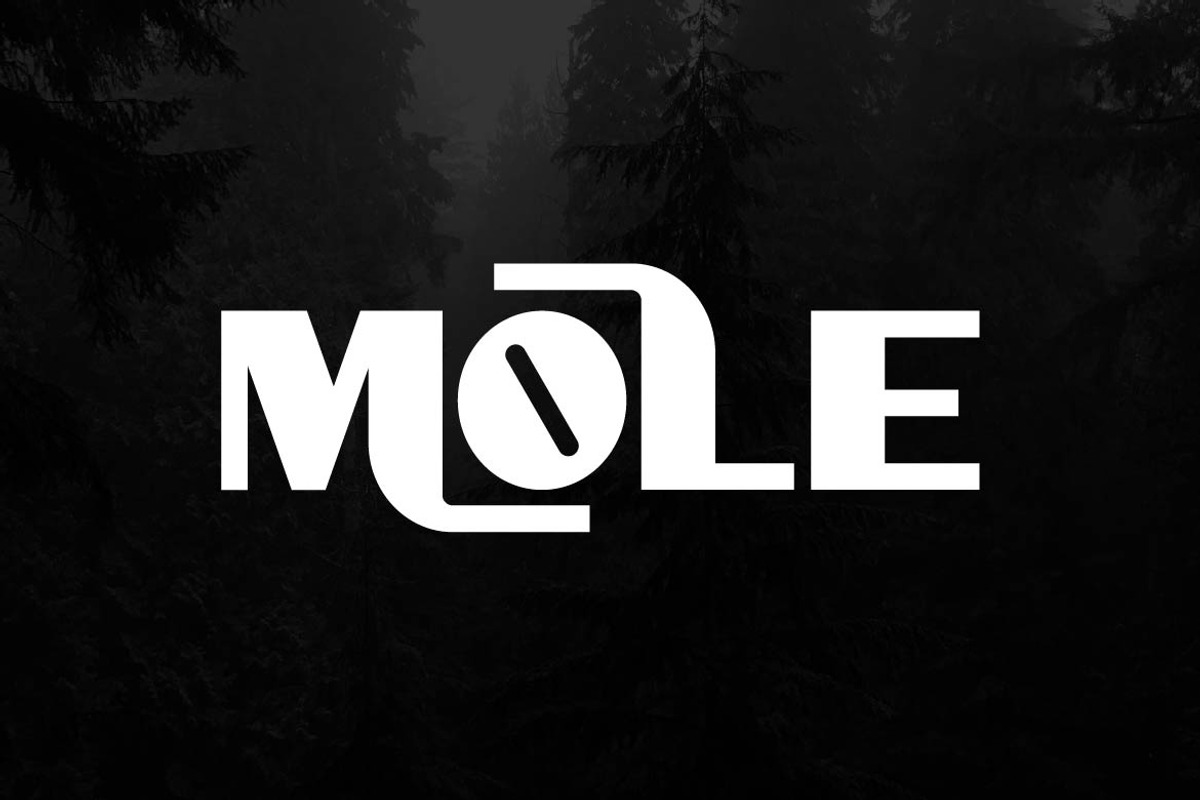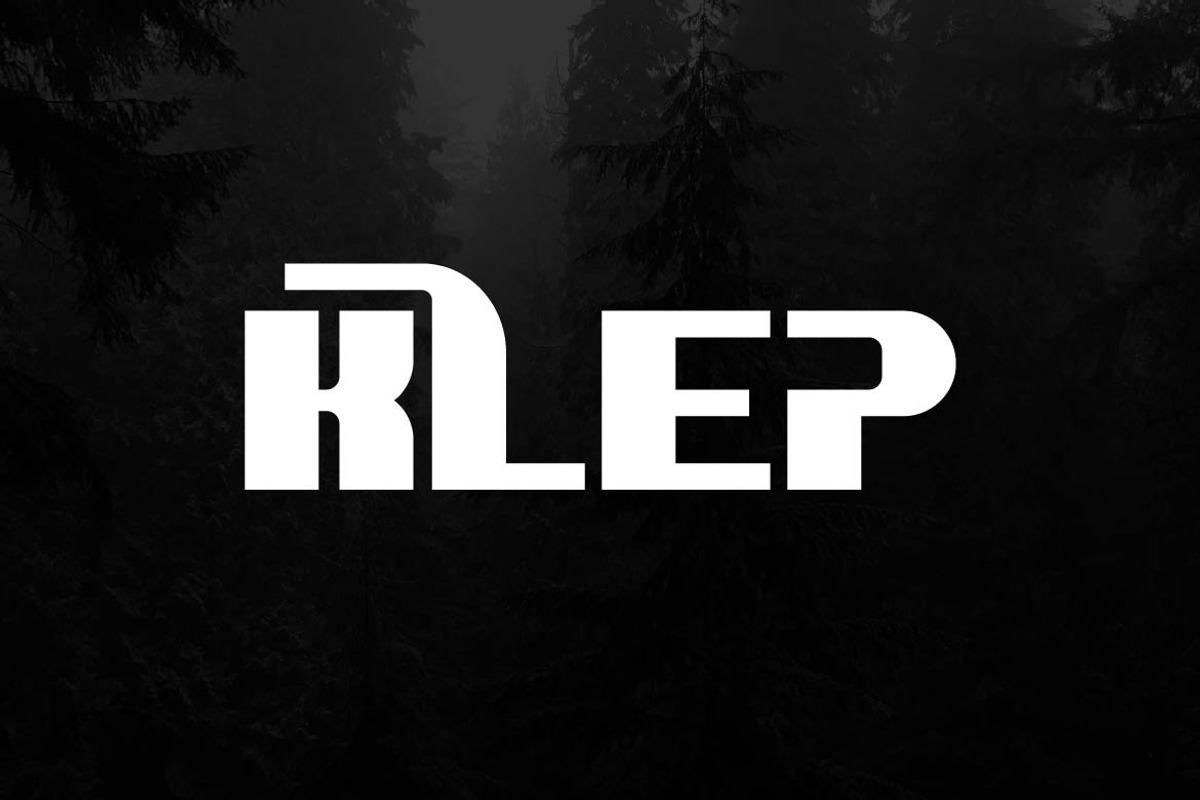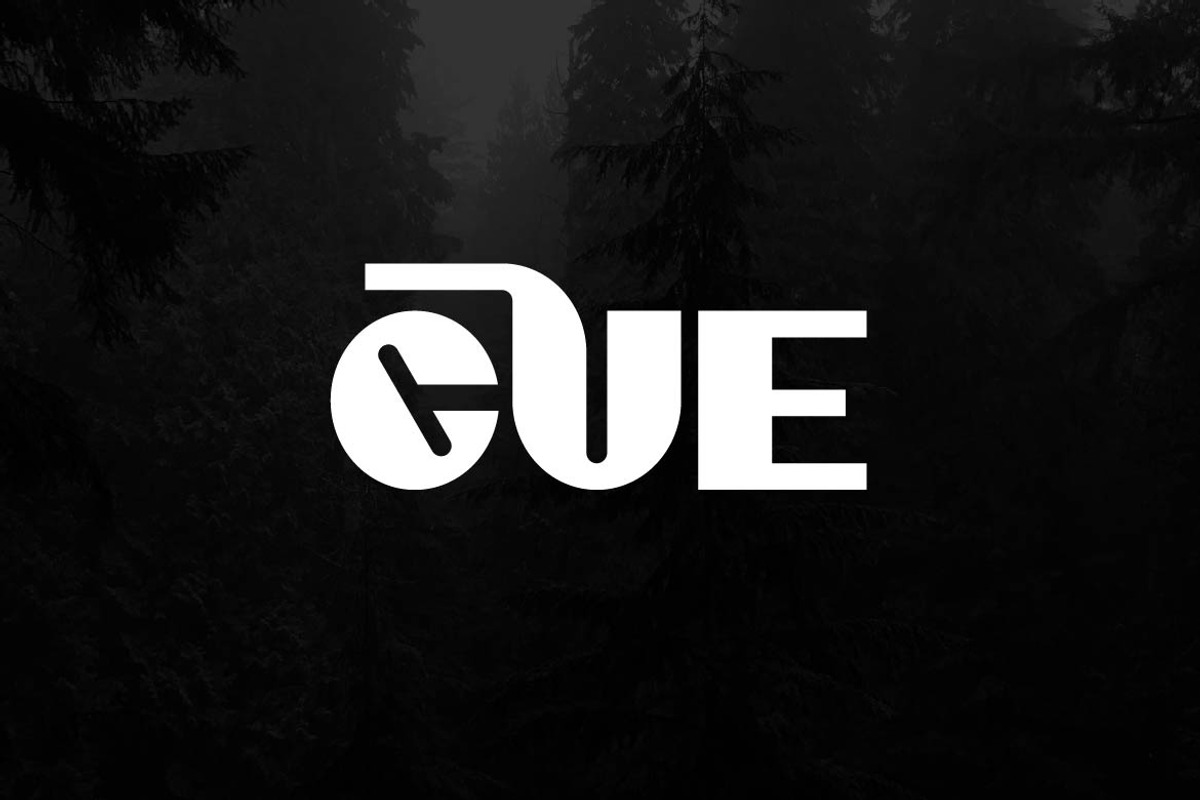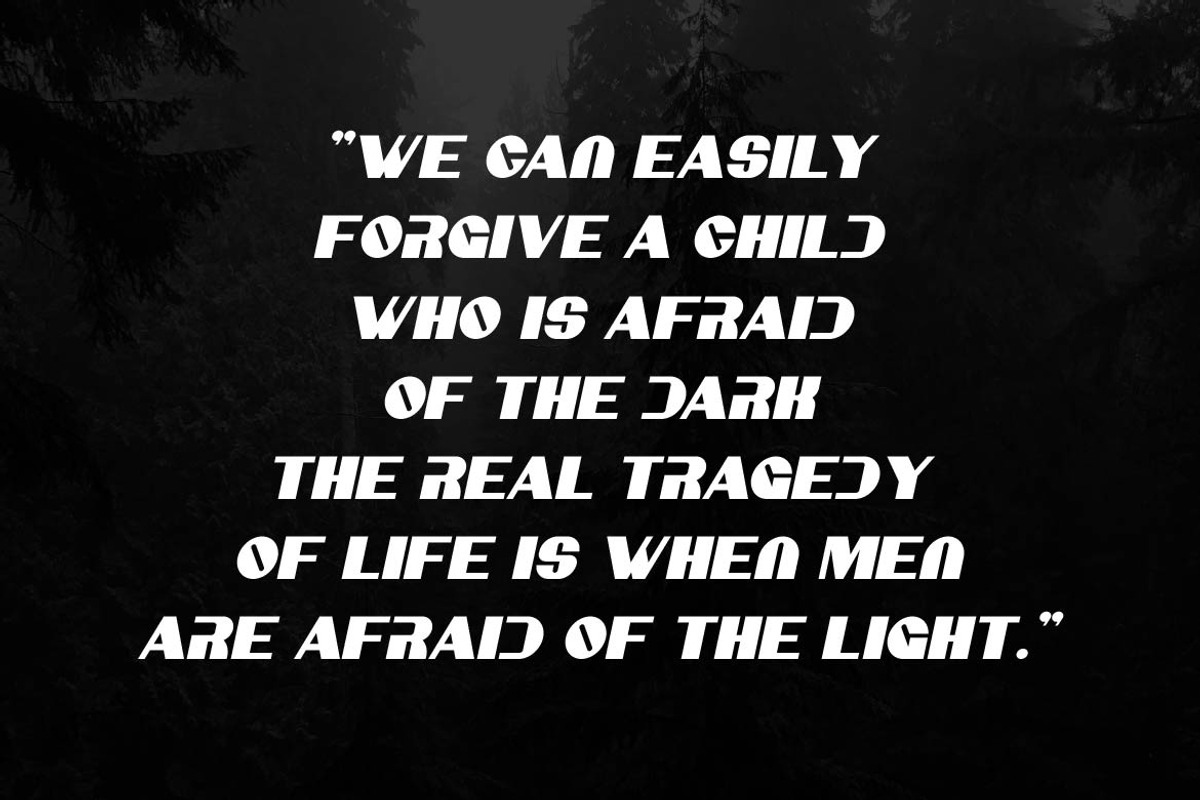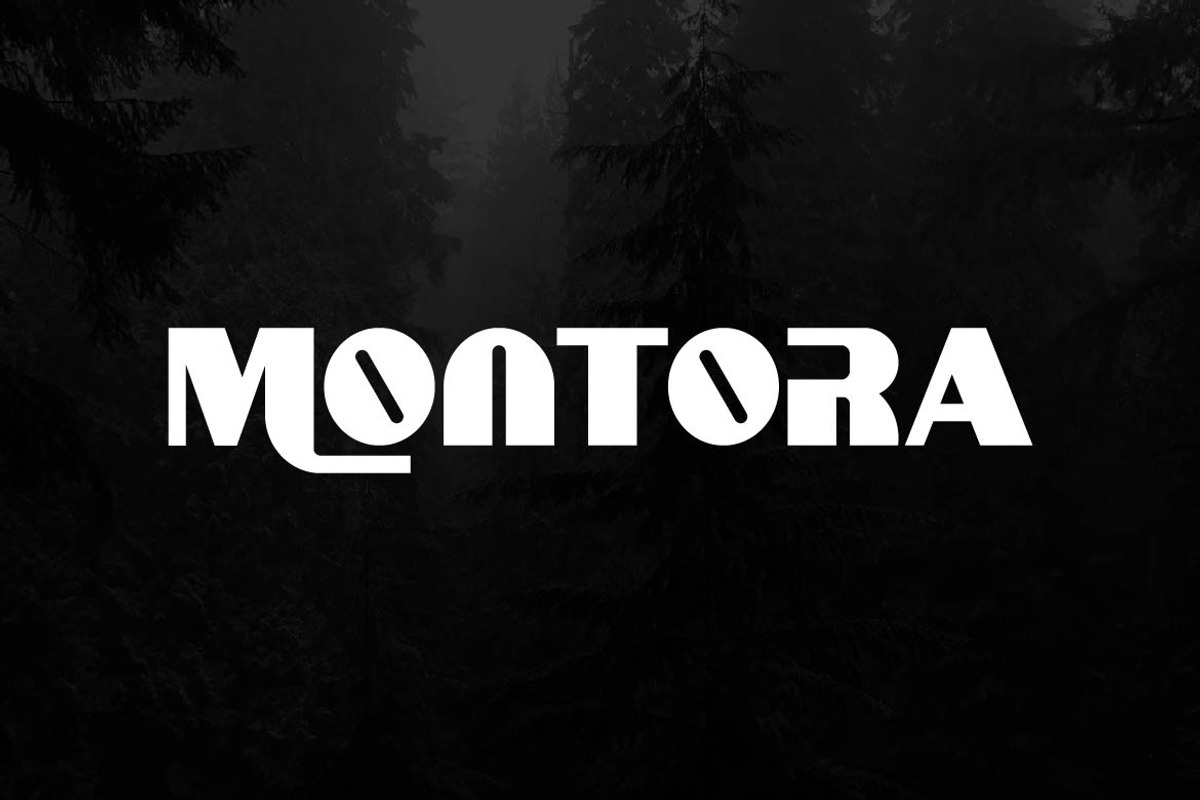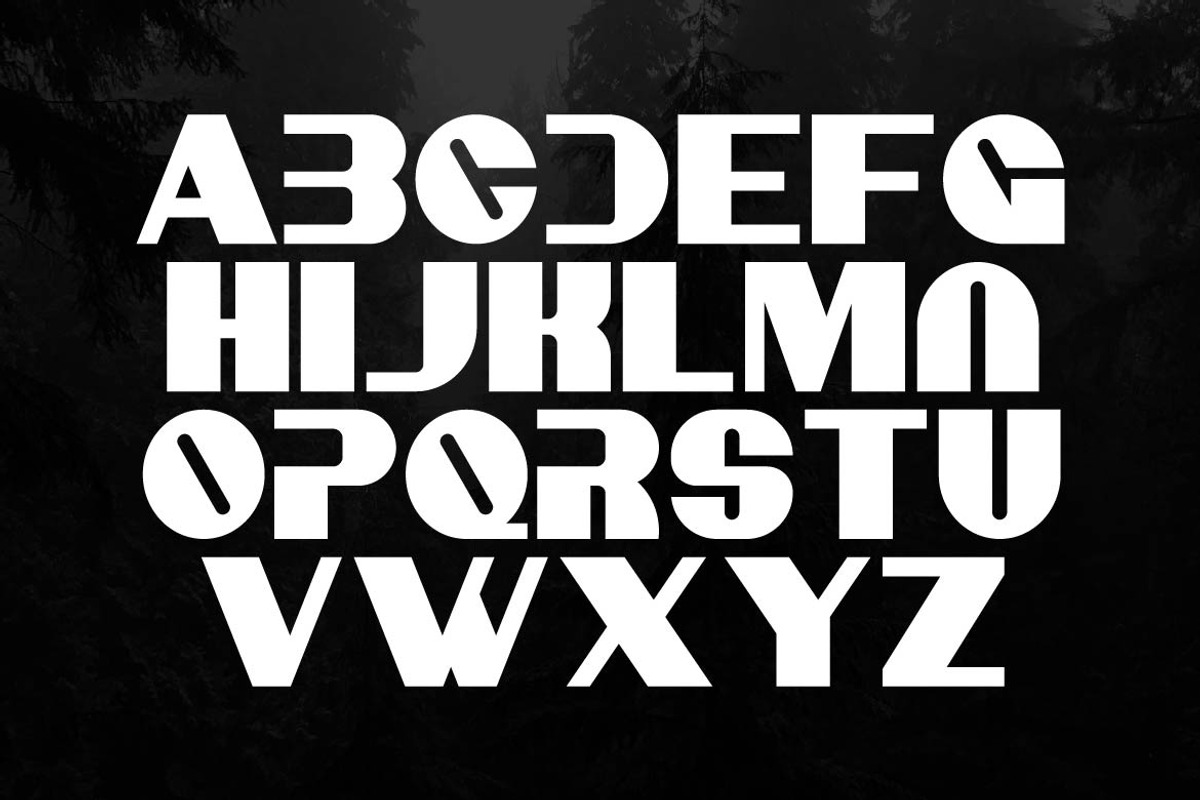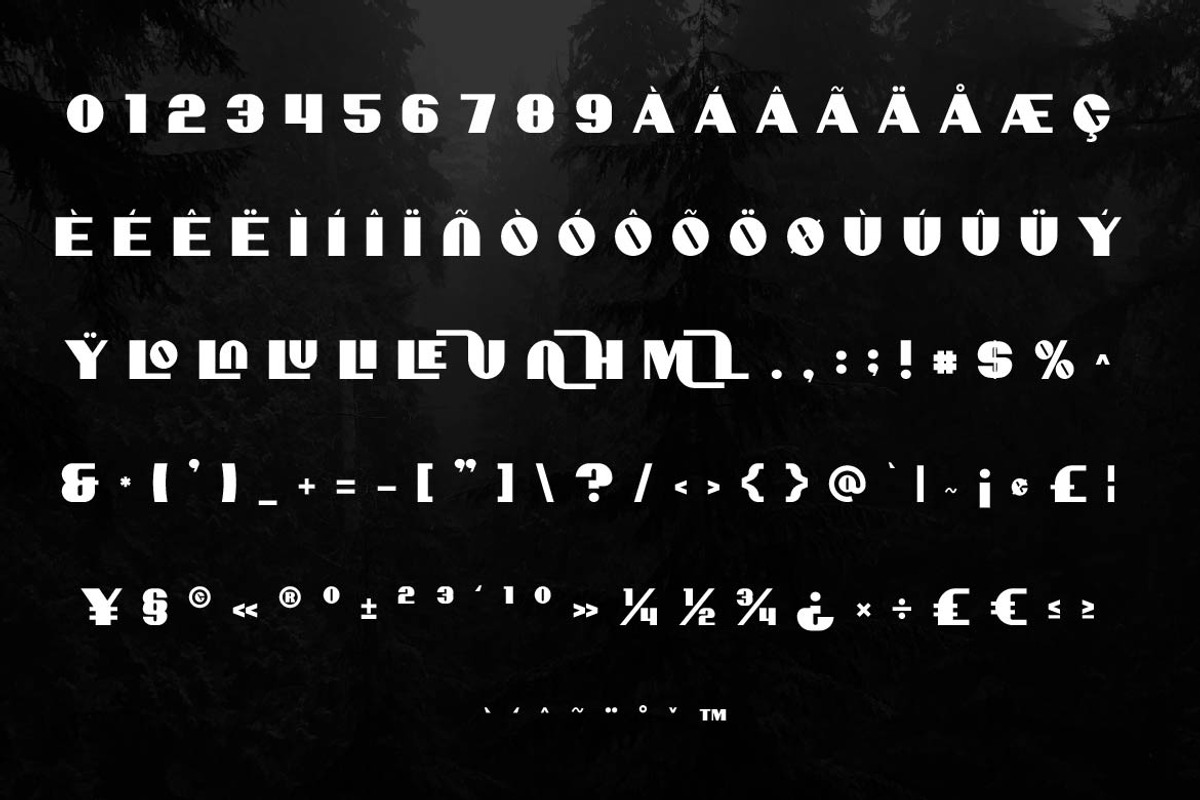
Montora – Bold Display Font
Montora is a bold display typeface designed to deliver strong visual impact with a clean and modern aesthetic. With solid letterforms, balanced proportions, and a confident structure, Montora stands out clearly in headlines and large-scale compositions.